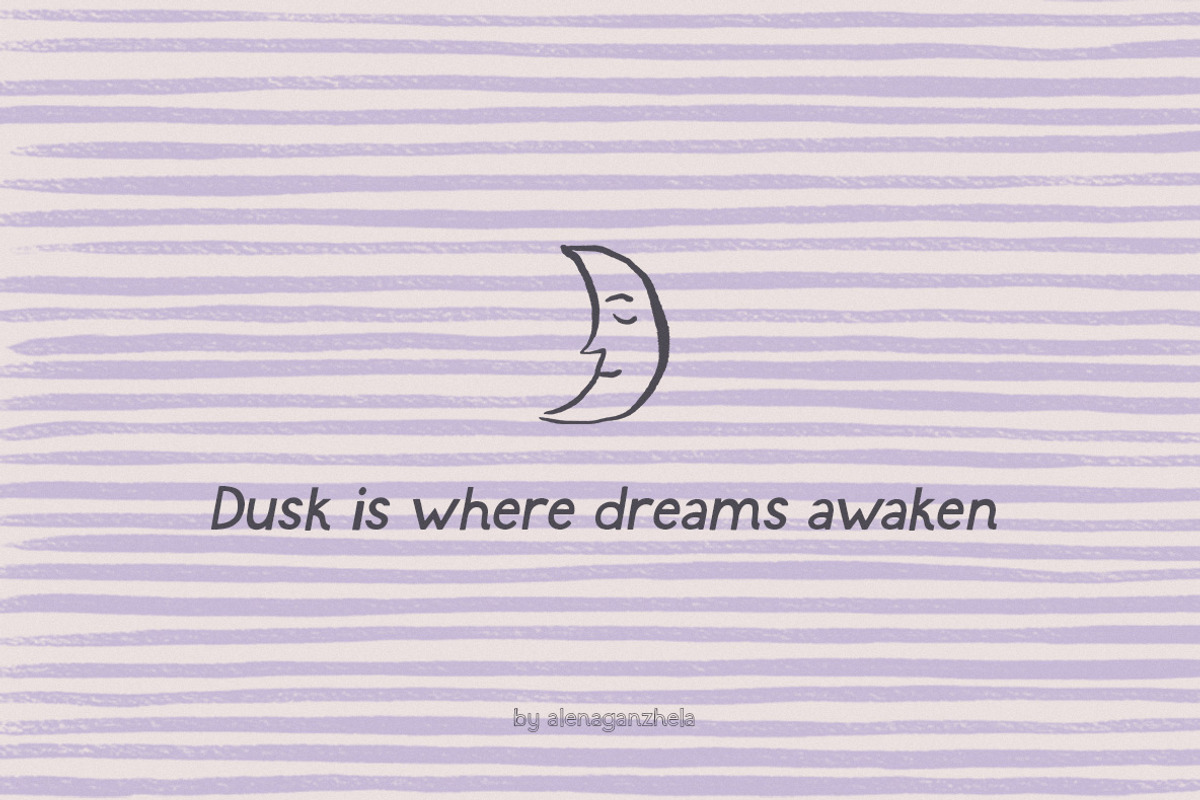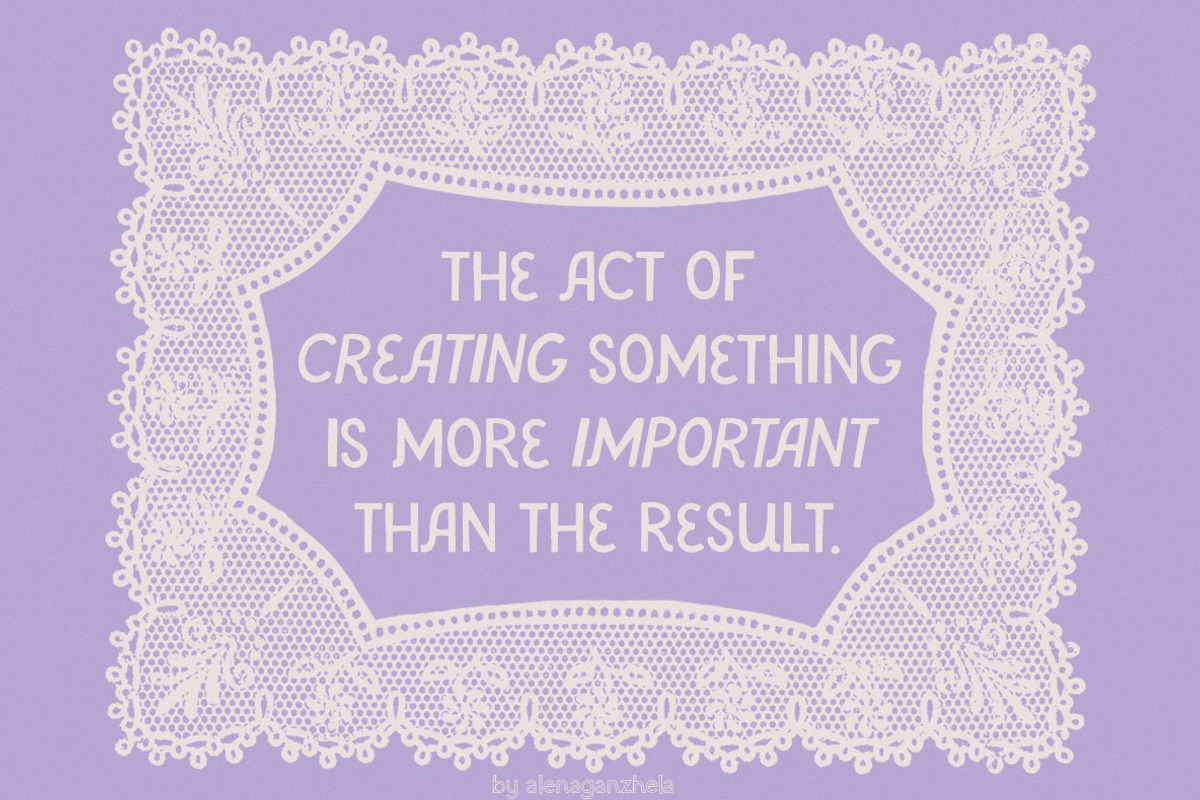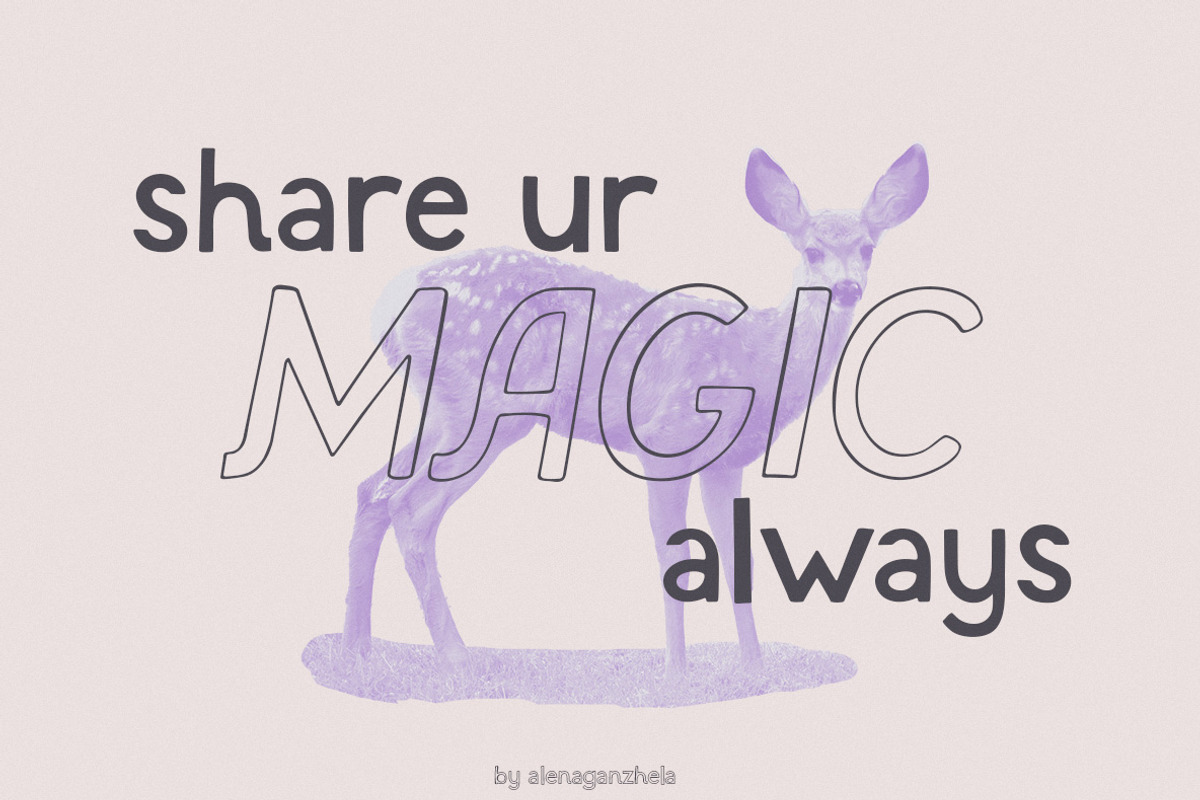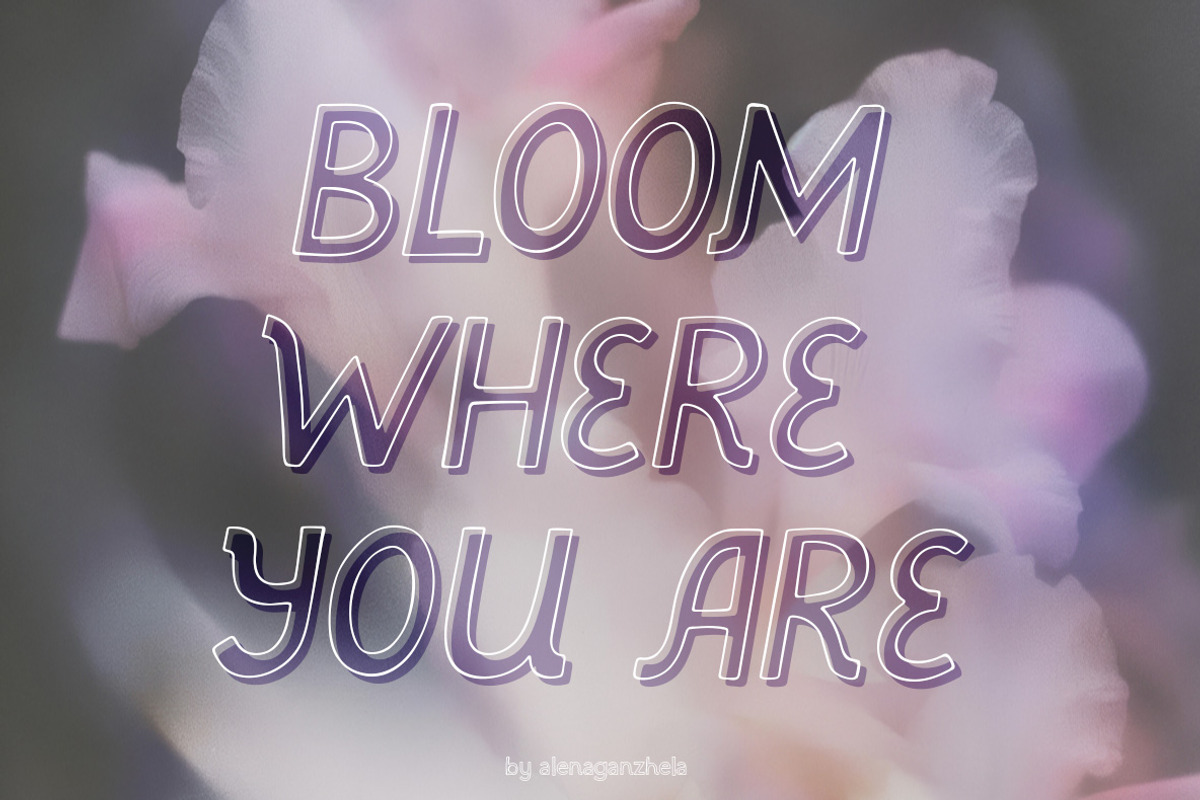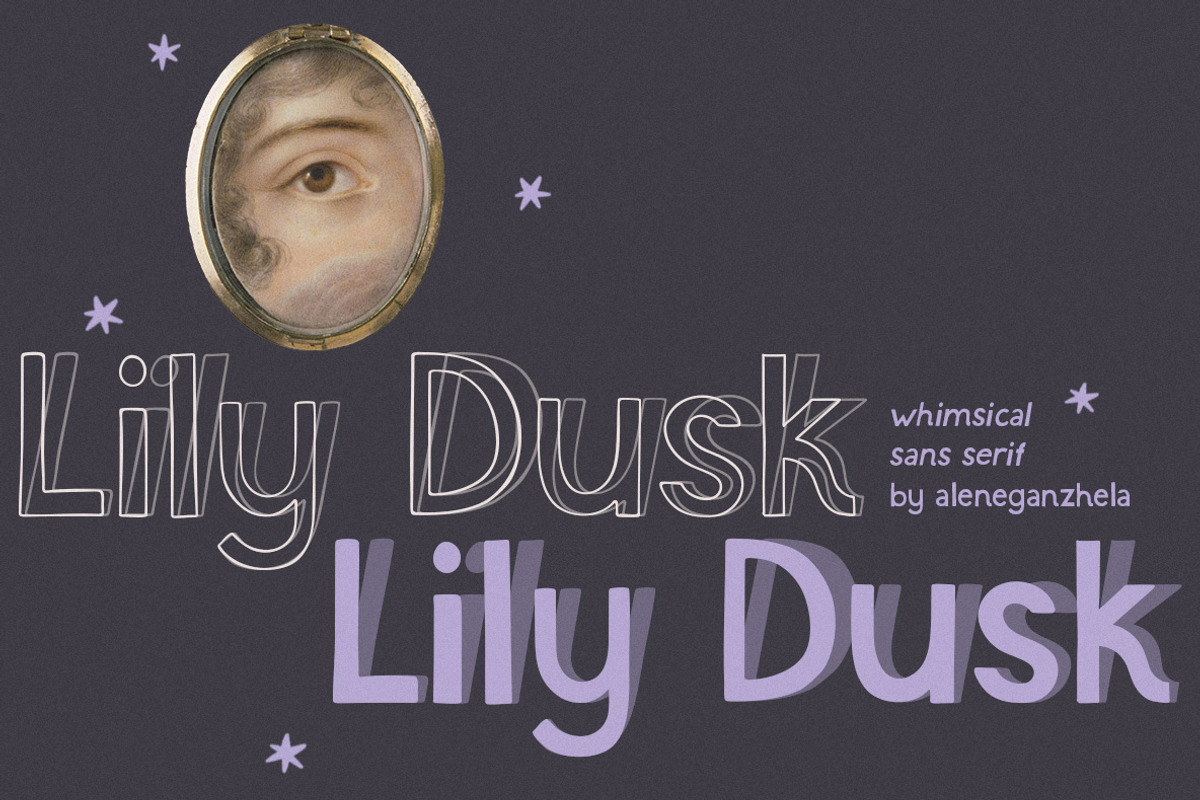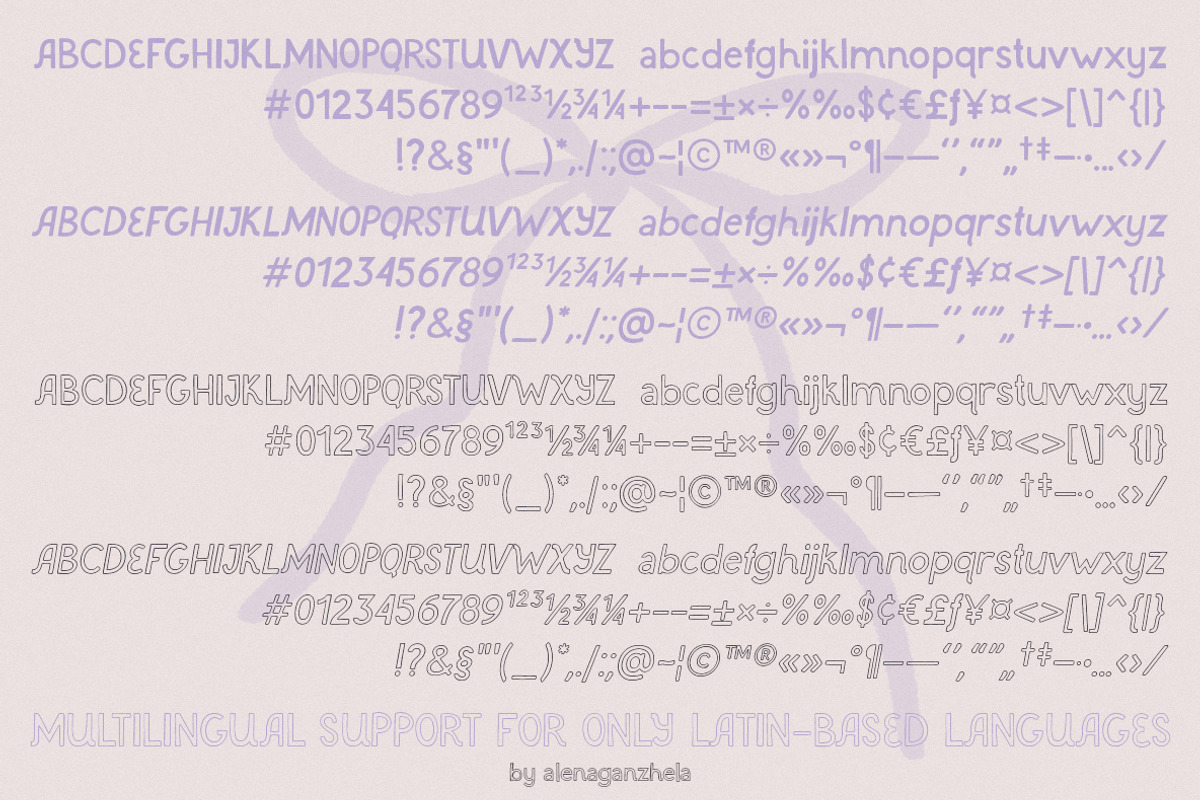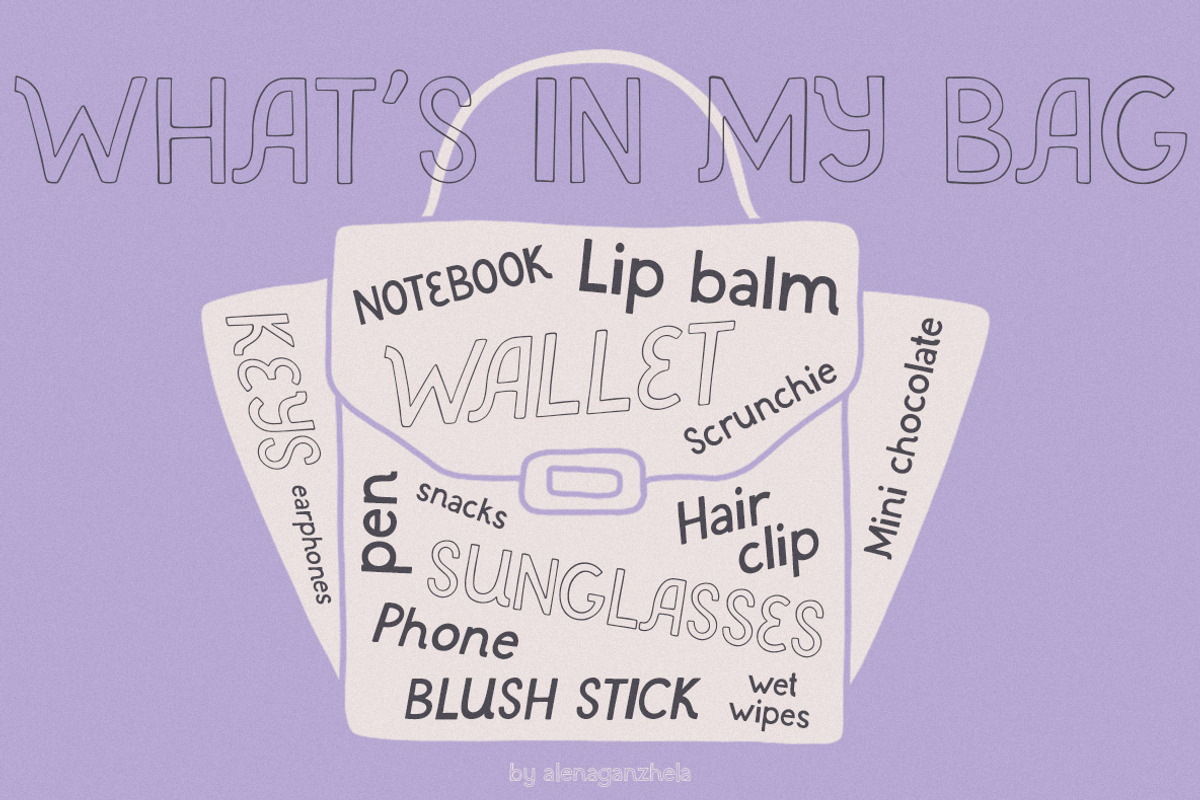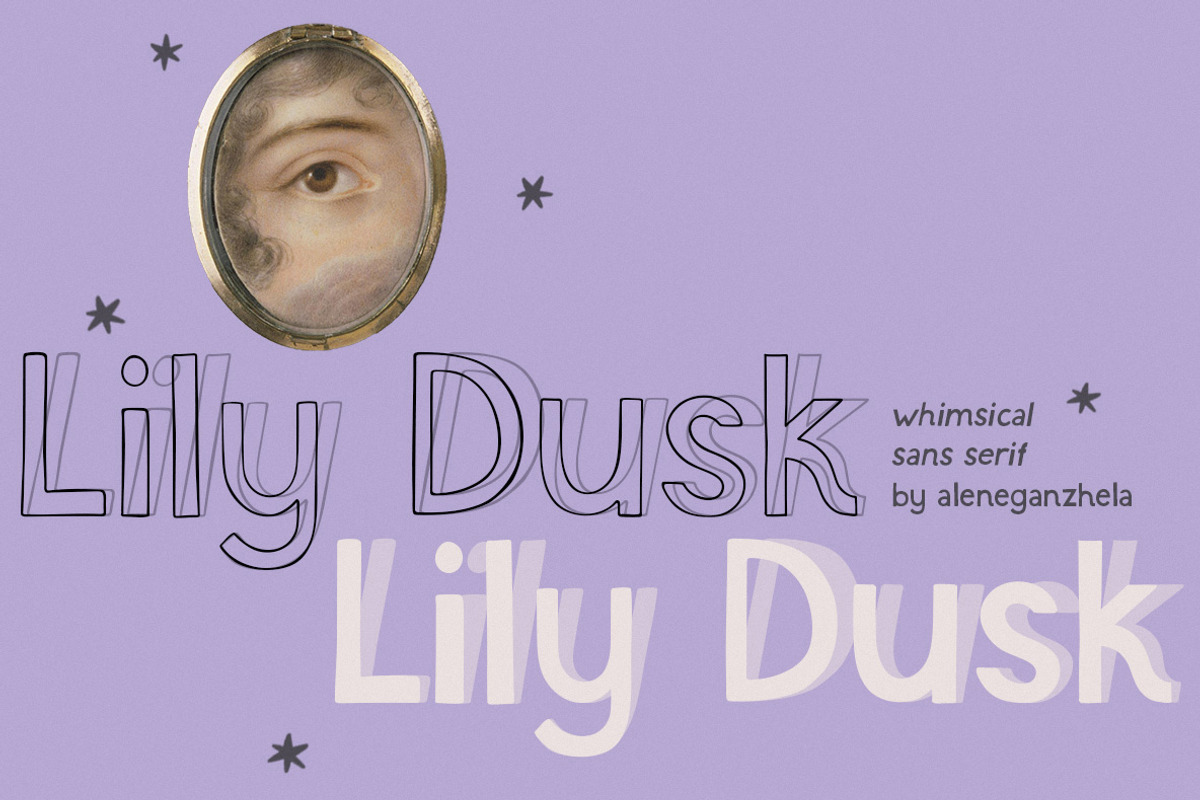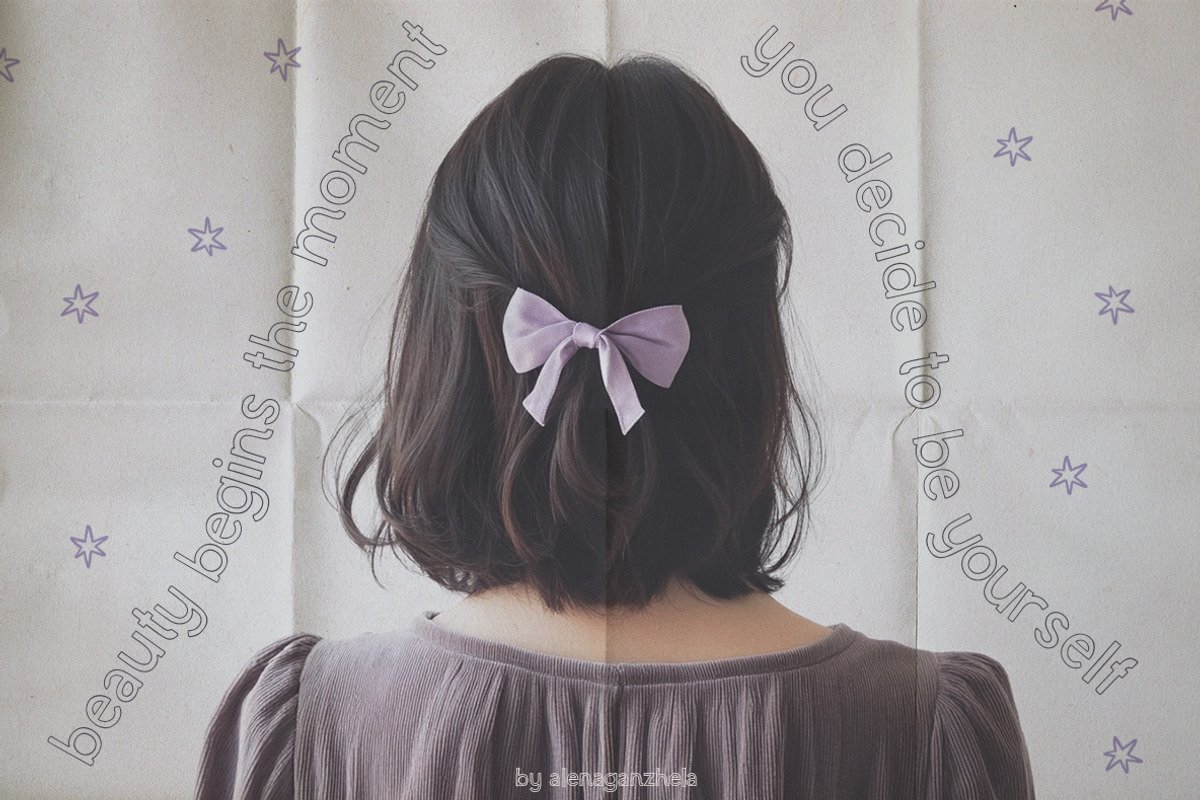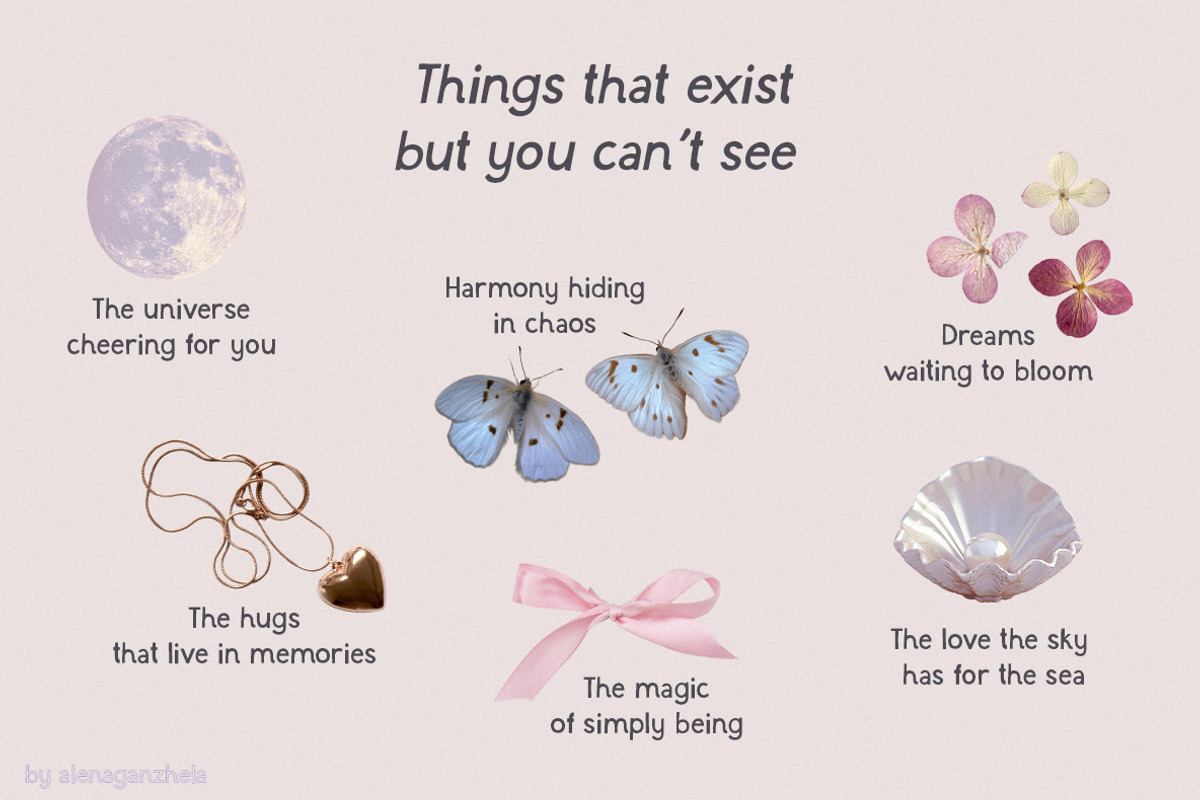
Lily Dusk whimsical display typeface
Introducing Lily Dusk, an elegant and playful sans-serif typeface designed to bring a soft, whimsical touch to your creative projects. With its handwritting lines and delicate curves, this font strikes a perfect balance between modern sophistication and lighthearted charm.
Whether you're crafting romantic wedding invitations, minimalist posters, or stylish logos, Lily Dusk adapts beautifully to a variety of designs, adding a refined yet approachable feel.
MULTILINGUAL SUPPORT!
Perfect for branding, editorial design, posters and wall art prints, invitation and greeting cards, stationery, social media and more.